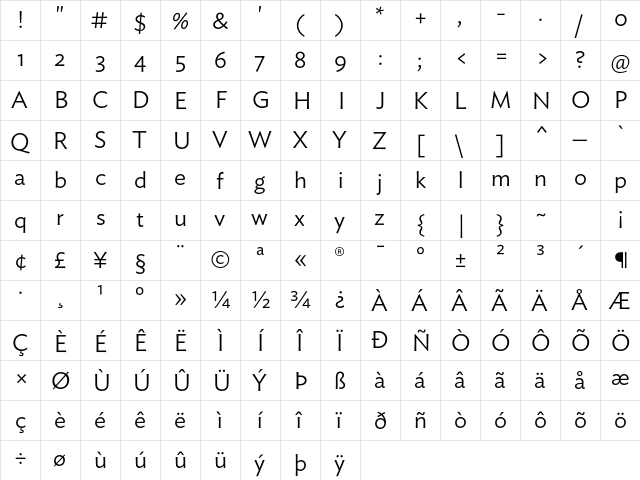
Ideal Sans Light
| Foundry | Hoefler & Frere-Jones |
| Designer | Hoefler & Frere-Jones |
Design Context for Ideal Sans Typeface
Ideal Sans offers clean, dependable letterforms without strong stylistic allegiance, making it a practical choice for designers who need flexibility. Its slender proportions lend an understated elegance to any composition.